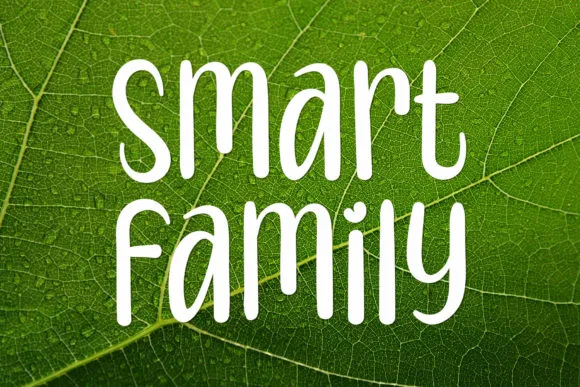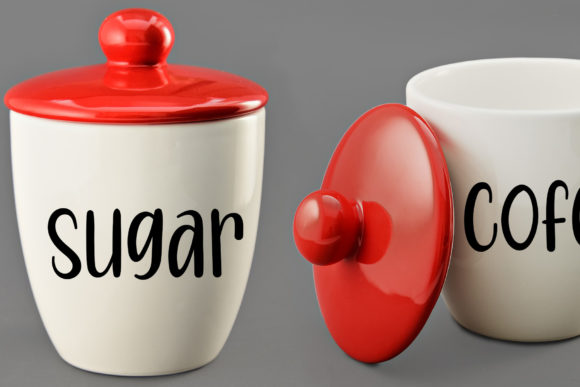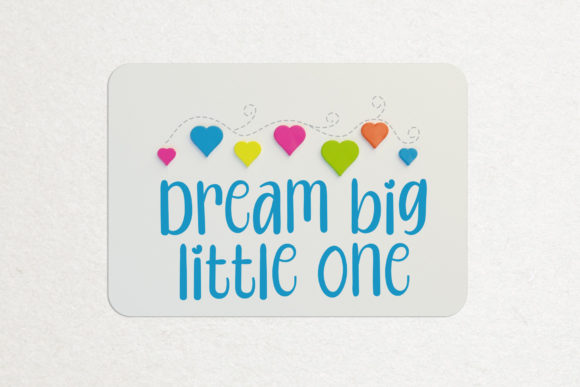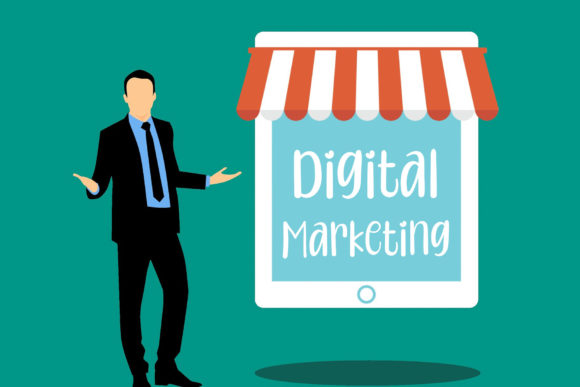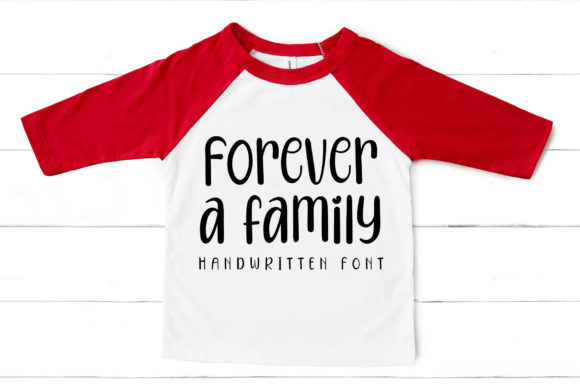
Smart Family Font
About Smart Family Font
Introducing “Smart Family,” a casual and beautiful handwritten font crafted to bring a chic touch to your designs. Perfect for wedding invitations, greeting cards, billboards, logos, business cards, and any project requiring a stylish and casual feel, this font is designed to enhance the visual appeal of your creations.
With its casual and beautiful design, “Smart Family” adds a touch of chic elegance to your projects. The handwritten style imparts a personal and approachable quality, making it a versatile choice for various design applications where a stylish and relaxed aesthetic is desired.
Imagine “Smart Family” as the ideal font for your wedding invitations, greeting cards, and business materials. Its adaptability ensures it can seamlessly fit into different design contexts, bringing a chic touch and enhancing the overall appeal of your projects.
In summary, “Smart Family” is more than just a font; it’s a casual and beautiful script designed to elevate the visual aesthetics of your creations. Let it be the perfect choice for adding a chic touch to your wedding invitations, greeting cards, and beyond, creating a stylish and inviting atmosphere for your designs.